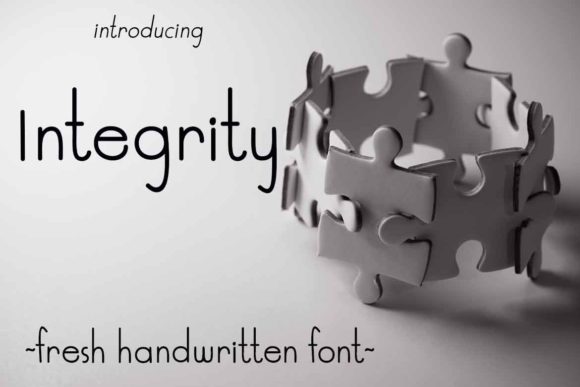
Immerse yourself in the realm of modern typography with Integrity Font - a sans serif masterpiece that exudes charm and versatility. This meticulously crafted font family, brought to life by the talented Supersemar Letter, is a symphony of clean lines, open counters, and striking letterforms, designed to elevate your designs to new heights.
Unleash your creative potential with Integrity Font, a sartorial symphony perfect for fashion-forward designs. Whether you're crafting eye-catching logos, alluring posters, or captivating social media graphics, Integrity Font will effortlessly elevate your designs with its refined elegance. Its clean and crisp strokes impart a sense of sophistication, while its versatile nature allows it to seamlessly adapt to a wide range of projects, from contemporary branding to minimalist websites.
Harness the captivating allure of Integrity Font to create designs that resonate with your audience. Its carefully balanced proportions and harmonious curves evoke a sense of harmony and balance, drawing the eye to your creations. Experience the joy of effortless readability, as Integrity Font's legible characters ensure your message is conveyed with clarity and impact.
With Integrity Font, you'll embark on a typographic journey like no other. Its ability to effortlessly complement a diverse range of design styles makes it the perfect choice for fashion-centric projects. Picture your designs adorned with Integrity Font, captivating your audience with its timeless appeal. Let your creativity soar as you craft logos that exude sophistication, flyers that demand attention, and social media posts that ignite engagement.
Embrace the transformative power of Integrity Font and witness the remarkable impact it can have on your designs. As a fashion-forward sans serif font, it effortlessly infuses your creations with a touch of elegance, ensuring they leave a lasting impression. Let Integrity Font be your creative muse, inspiring you to produce designs that are not just visually stunning but also convey your message with eloquence and impact.